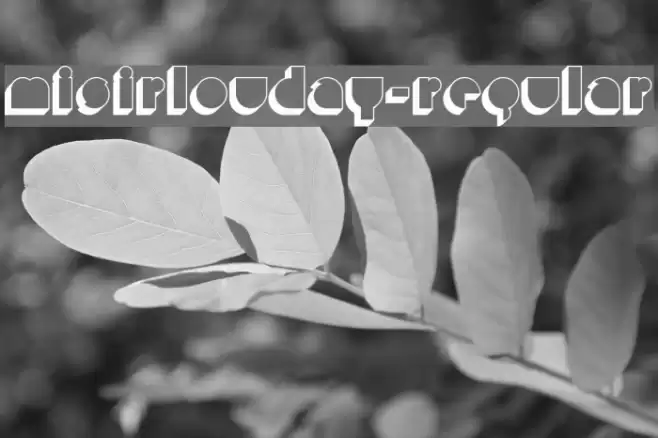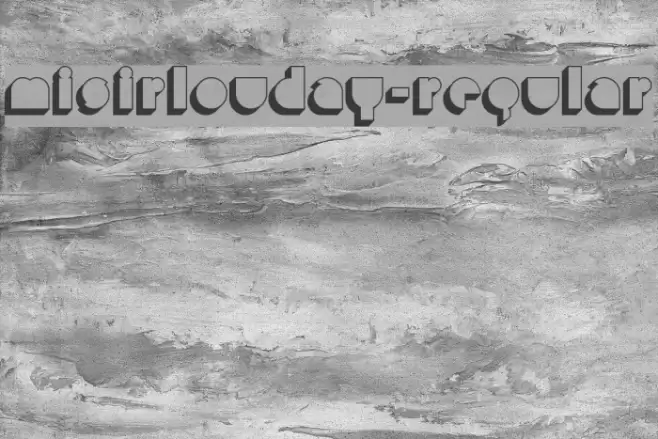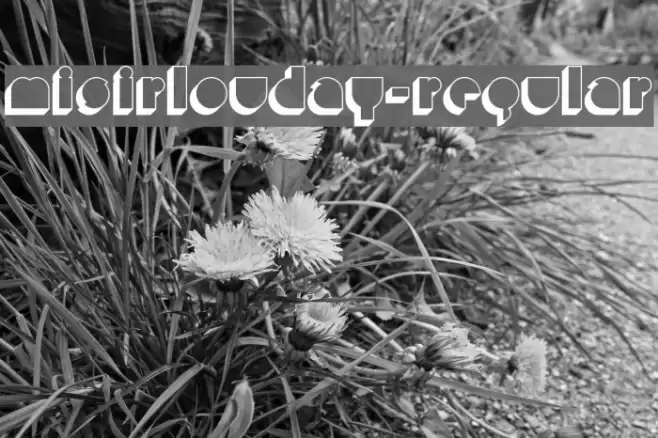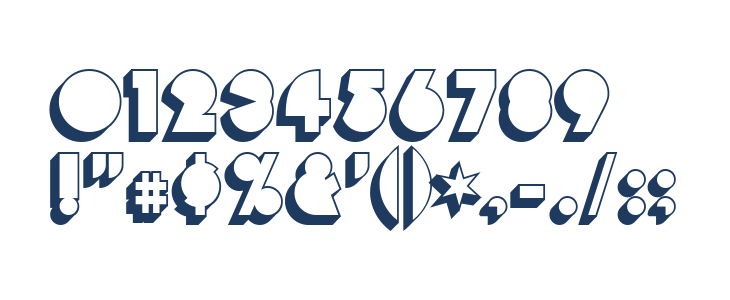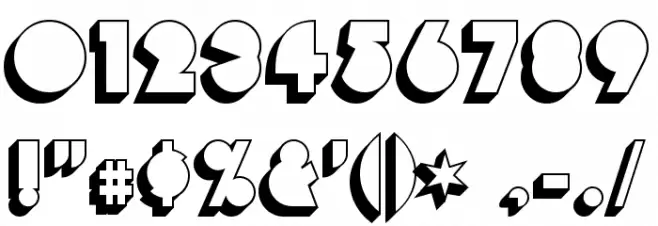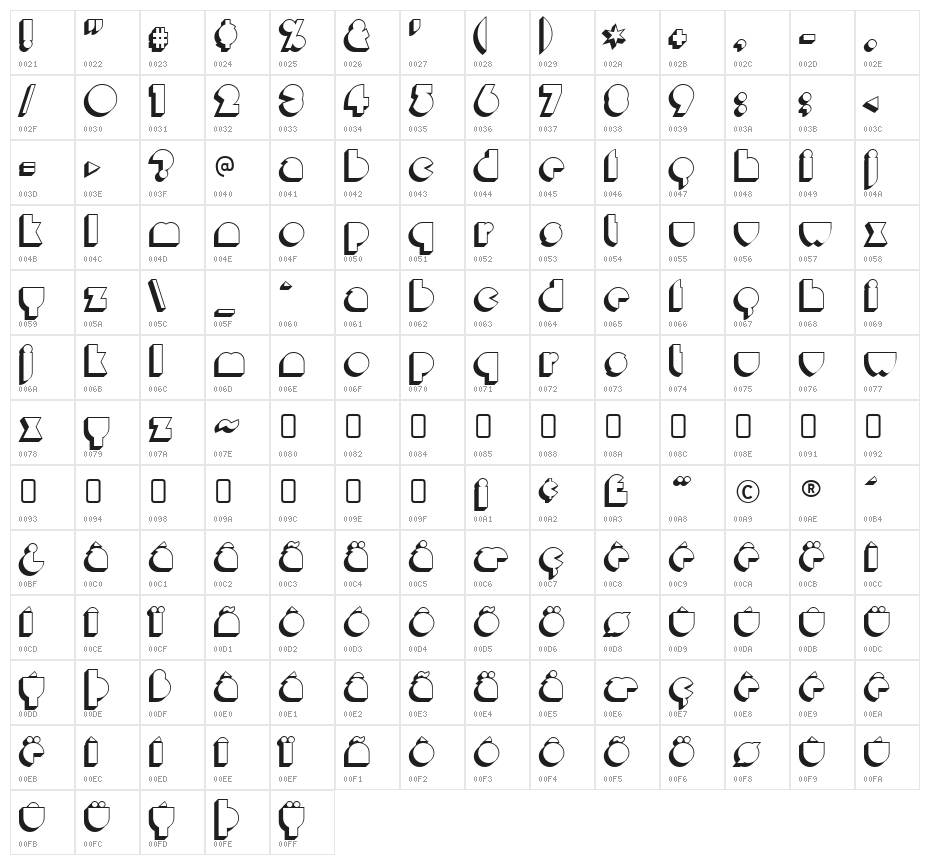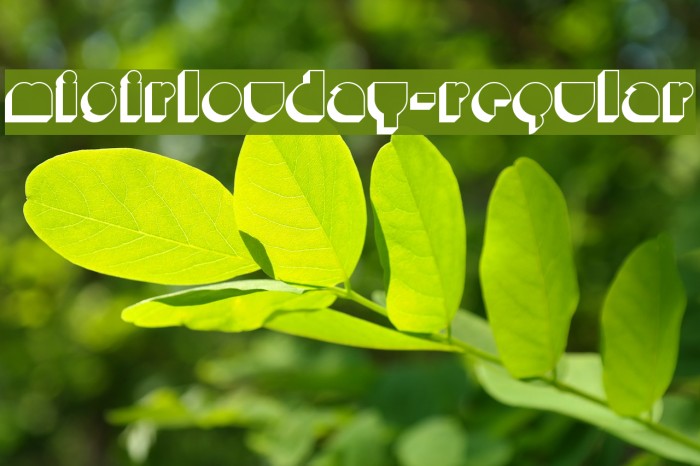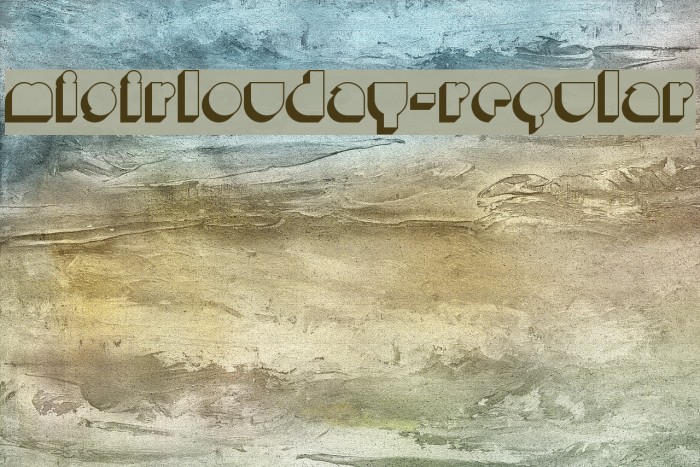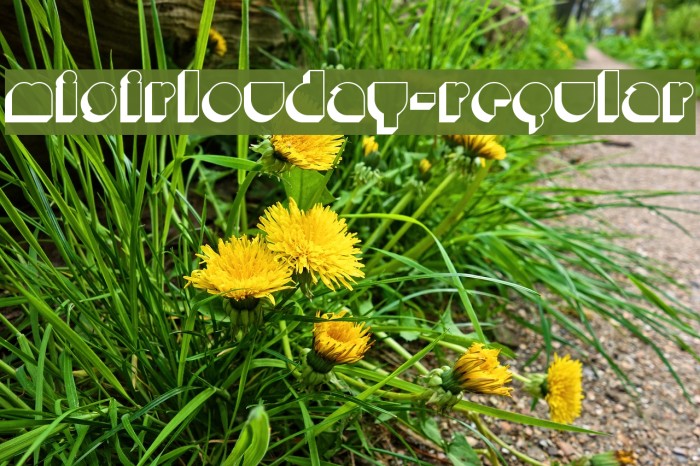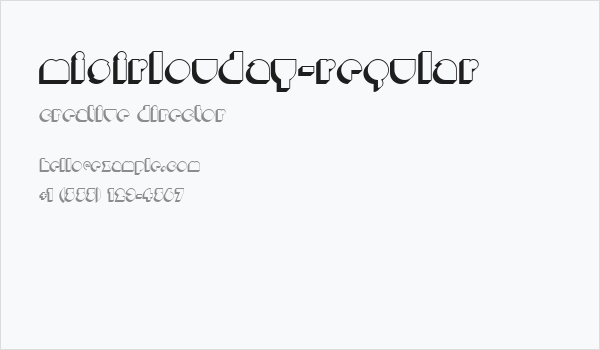
MisirlouDay-Regular Font
MisirlouDay-Regular Description
This font features a bold, geometric style with a three-dimensional effect created by shadowing. The characters are constructed with a combination of sharp angles and smooth curves, giving it a unique and modern appearance. The uppercase and lowercase letters maintain a consistent design, emphasizing a playful yet structured aesthetic. Numbers and special characters follow the same design principles, ensuring uniformity across all glyphs. The font's distinct shadowing adds depth, making it stand out in any design project.
A bold, geometric font with a three-dimensional shadow effect from Uncategorized fonts.
- Proposed Projects: Ideal for posters, logos, and headlines where a striking, modern look is desired.